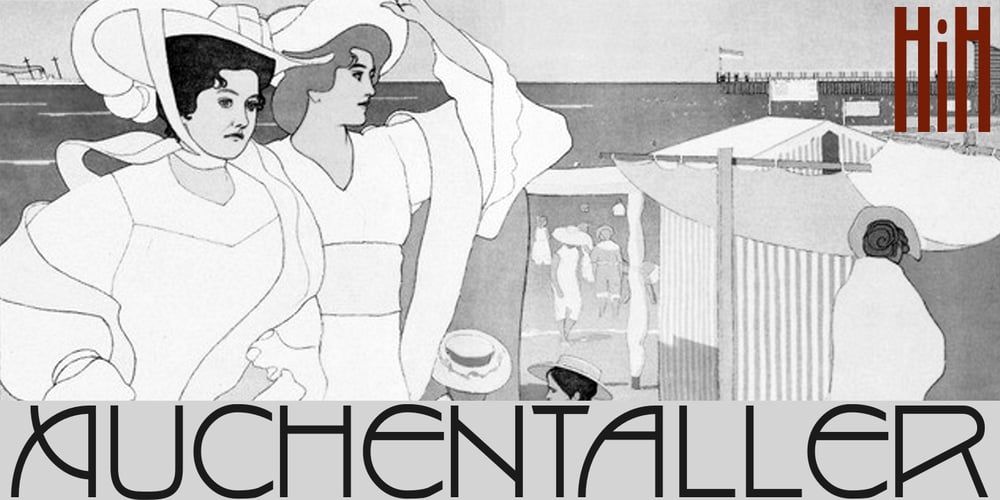
Auchentaller Font Family was designed by Josef Maria Auchentaller and published by HiH. Auchentaller contains 1 styles and family package options. Auchentaller was inspired by a travel poster by Josef Maria Auchentaller in 1906. To our knowledge, it was never cast in type. Grado lies on the northern Adriatic, between Venice and Trieste. At one time the port for the important Roman town of Aquileia. With the decline of the Roman Empire, the upper Adriatic region came under the rule of the Visigoths, the Ostrogoths, the Byzantines, the Lombards, the Franks, the Germans, the Venetians and finally, in 1796, the Austrian Hapsburgs. So it remained until the dissolution of the Austro-Hungarian Monarchy in 1919, following World War I, when the seaport of Trieste was awarded to Italy. With Trieste came Montefalcone, Aquileia and Grado. The area was marked by years of political tension between Italy and Yugoslavia, exemplified by the d’Annunzio expedition to capture Fiume (Rijeka) in September, 1919. Some basic discussion of the period from 1919 to 1939 may be found in Seton-Watson’s Eastern Europe Between The Wars (Cambridge 1945) and Rothschild’s East Central Europe Between The Two World Wars (Seattle 1974). In 1965 I was traveling by train from Venice to Vienna. Crossing the Alps, the train stopped for customs inspection at the rural Italian-Austrian border, just above Slovenia. We were warned not to get off the train because there were still shooting skirmishes in the area. Through all this, Grado remained literally an island of tranquility, connected to the mainland by a only causeway and lines on a map. Auchentaller not only painted the beach scene at Grado, he moved there, living out the rest of his life in this comfortable little island town. His travel illustration contains the text from which the design of our font Auchentaller is drawn. The text translates: “Seaside resort : Grado / Austrian coastal land”. Please see our gallery images to see a map locating Grado, as well as Auchentaller’s painting of the resort. Auchentaller is a monoline all-cap font, light and open in design , with a lot of typically art nouveau letter forms. Included in our font are a number of ligatures. As is frequently seen in designs by German speakers, the umlaut is embedded in the O & U below the tops of the letters. This approach led to two whimsies: a happy umlauted O and a sad umlauted U. This font has a clean, crisp look that is very appealing and very distinctive. Auchentaller ML represents a major extension of the original release, with the following changes: 1. Added glyphs for the 1250 Central Europe, the 1252 Turkish and the 1257 Baltic Code Pages. Add glyphs to complete standard 1252 Western Europe Code Page. Special glyphs relocated and assigned Unicode codepoints, some in Private Use area. Total of 336 glyphs. 2. Added OpenType GSUB layout features: pnum, liga, salt & ornm. 3. Added 116 kerning pairs. 4. Revised vertical metrics for improved cross-platform line spacing. 5. Revised ‘J’. 6. Minor refinements to various glyph outlines. 7. Inclusion of both tabular & proportional numbers. 8. Inclusion of both standard acute and Polish kreska with choice of alternate accented glyphs for c,n,r,s & z. Please note that some older applications may only be able to access the Western Europe character set (approximately 221 glyphs). The zip package includes two versions of the font at no extra charge. There is an OTF version which is in Open PS (Post Script Type 1) format and a TTF version which is in Open TT (True Type)format. Use whichever works best for your applications.